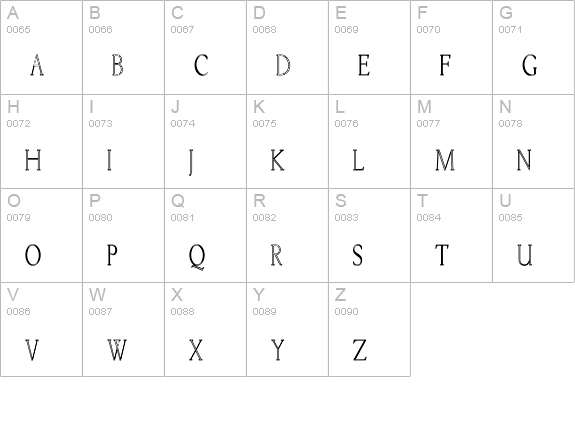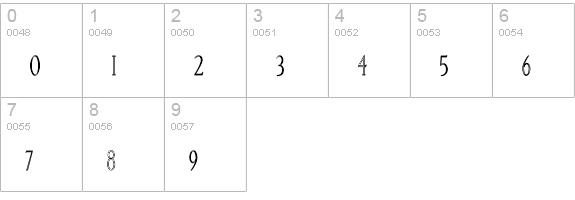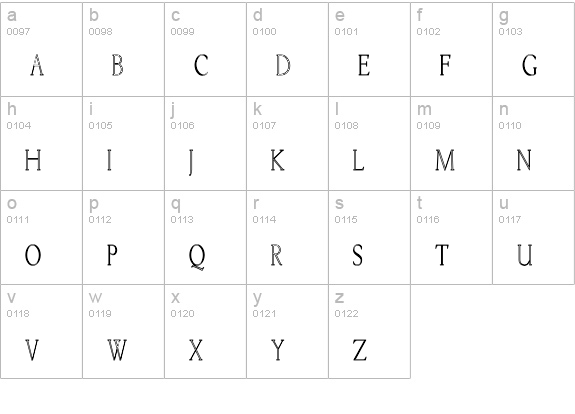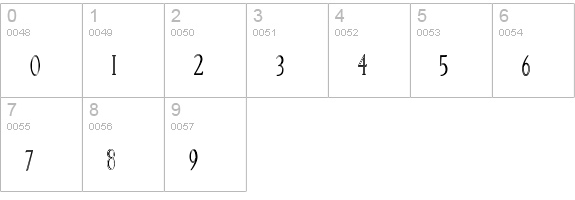
LichtnerHC font is a sleek and modern typeface that exudes sophistication and elegance. With its clean lines and stylish curves, this font is perfect for adding a touch of sophistication to any design project. Whether you're creating a logo, designing a website, or crafting a social media post, LichtnerHC font will elevate your work to the next level. What's even better is that LichtnerHC font is completely free to download! You can easily access this stunning font at FontsMarket.com and incorporate it into your projects without any cost. Don't miss out on the opportunity to enhance your designs with the timeless beauty of LichtnerHC font. Download it today and let your creativity shine!